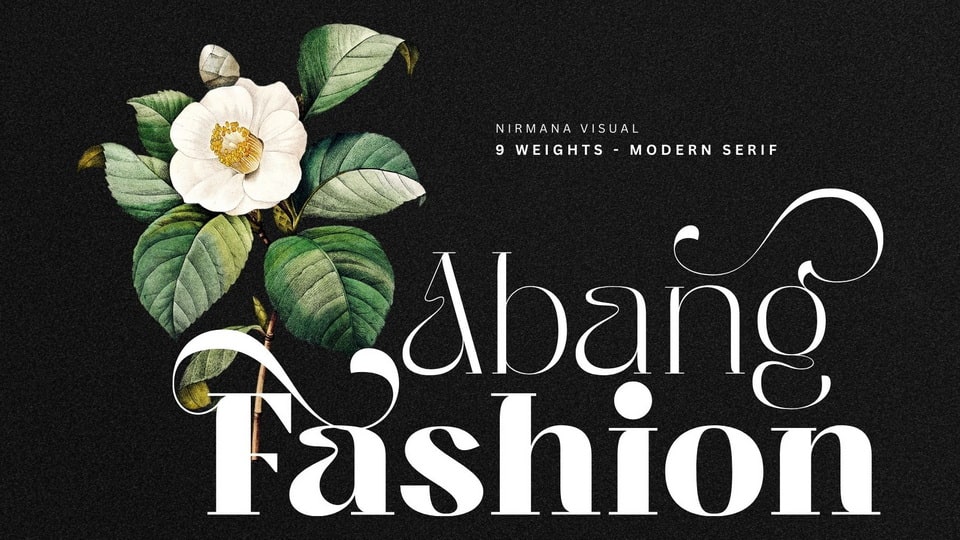
Download Abang Fashion font, a stylish and luxurious display typeface. This font offers beautiful typographic harmony for a diversity of design projects, including logos and branding, social media posts, advertisements, or product packaging.